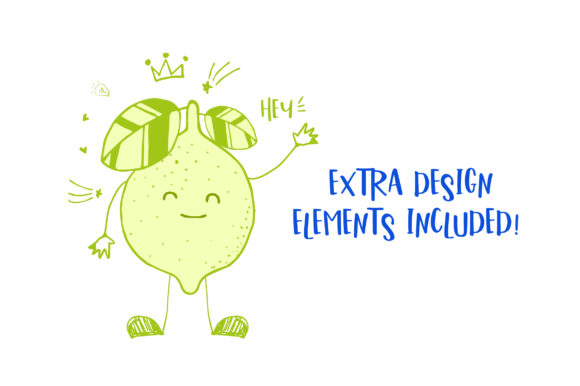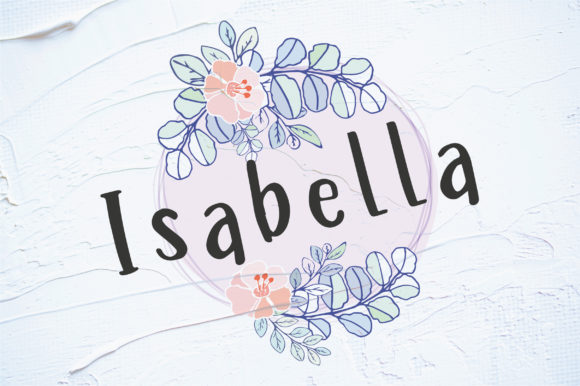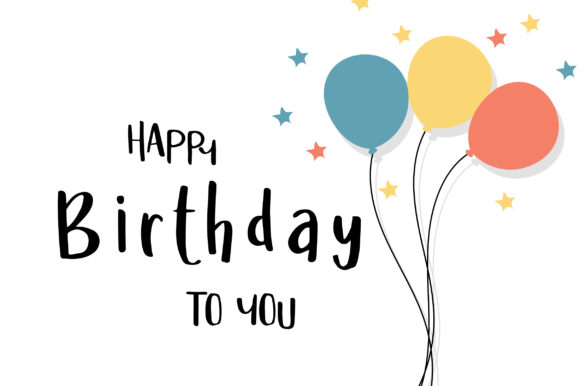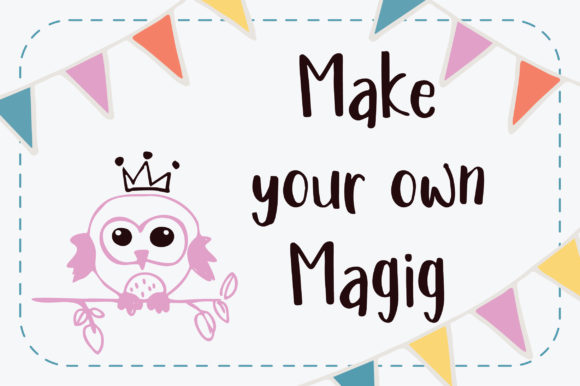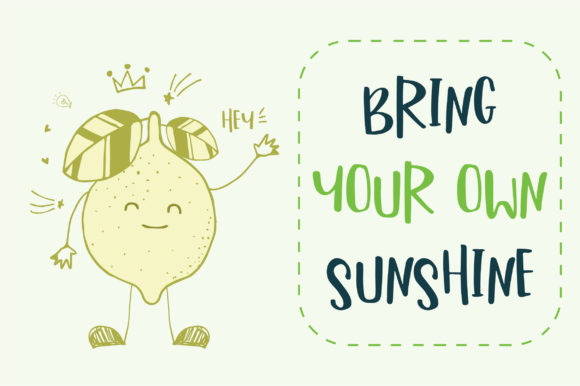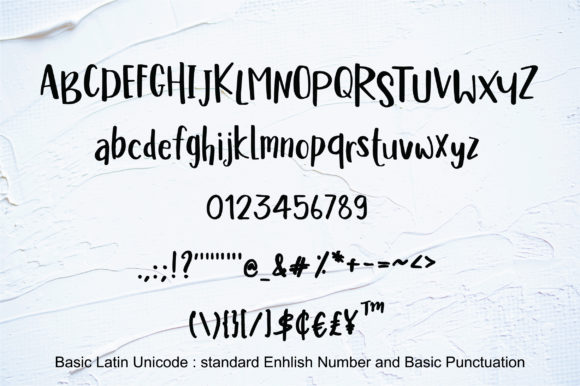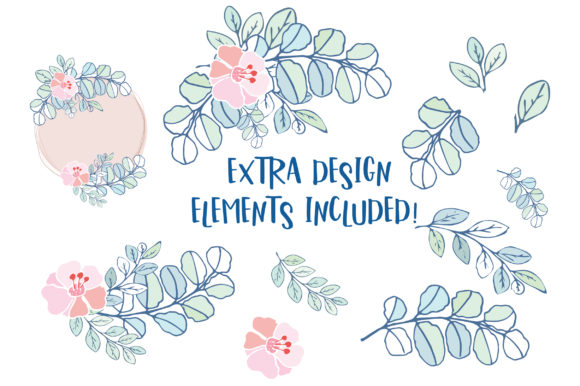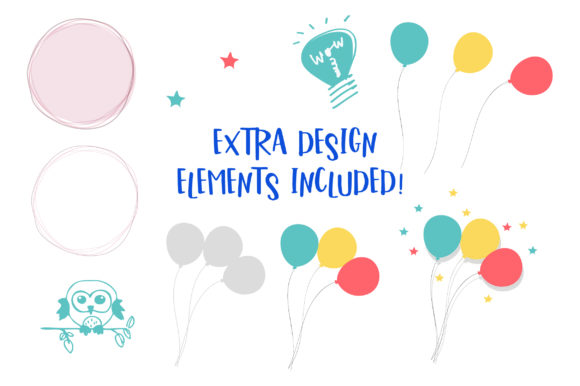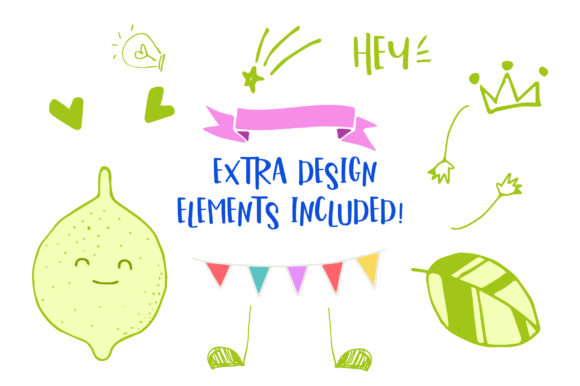
Kidzone Font
About Kidzone Font
Kidzone is a cheerful and friendly handwritten font. It is perfect for illustrations, posters, logos, book covers and much more!